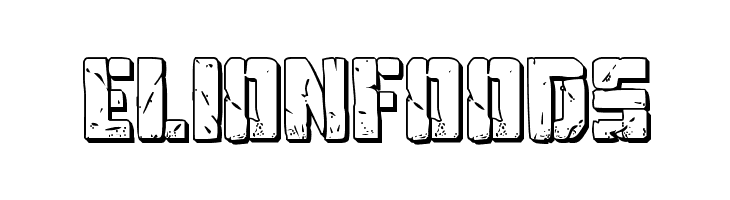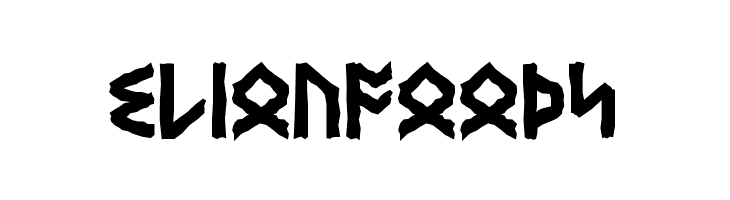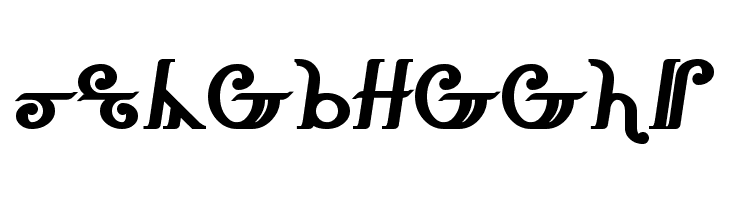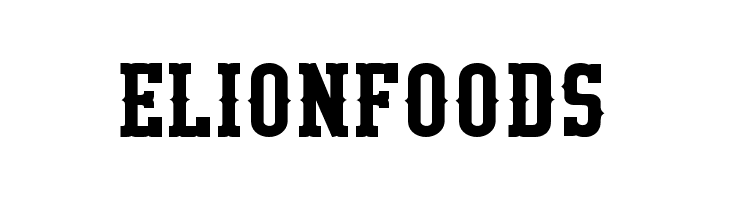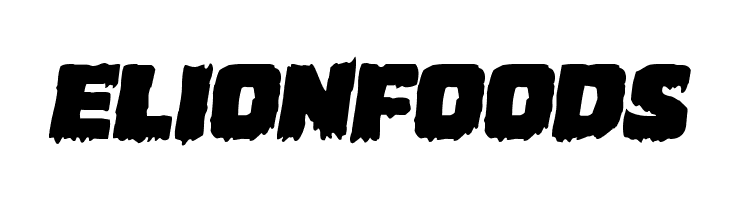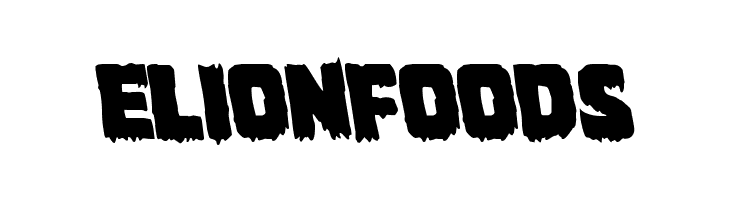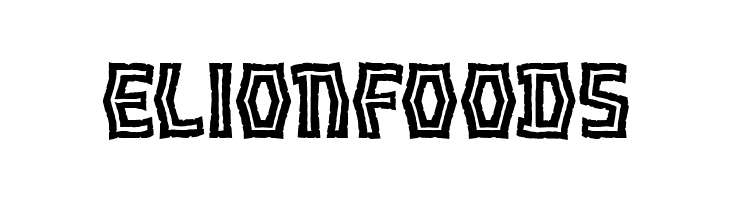
A decorative font with arrow-themed embellishments, offering a tribal aesthetic.
A bold, textured font with a distressed, stormy appearance.
A rugged, textured font with a natural, handcrafted appearance.
A bold, slanted font with a futuristic and dynamic style.
A bold, distressed font with a textured, weathered appearance.
A bold, distressed font with an organic, rugged texture.
A bold, textured font with rugged, organic patterns and jagged edges.
A bold, textured font with a rugged, rock-like appearance.
A decorative, geometric font inspired by fictional runes, ideal for fantasy themes.
A bold, vintage font with intricate, decorative flourishes.
A bold, textured font with a rustic, hand-drawn appearance.
A bold, textured font with a snowy, distressed appearance.
A distressed, textured font with a rugged, wintry appearance.
Bold, angular, and pirate-themed with a slight italic slant.
A bold, industrial font with a distressed, eroded effect for a rugged look.
A bold, italic 3D font with a distressed, dynamic style.
A bold, distressed 3D font with a rugged, stone-like appearance.
A bold, camouflage-patterned font ideal for adventurous and rugged designs.
A rugged, textured font with a splintered wood appearance.
A bold, decorative font with characters set in cowboy-themed silhouettes.
A bold, playful font with a jungle-inspired theme and irregular cutouts.
A bold, Western-inspired font with thick, rounded strokes and a vintage charm.
A bold, distressed font with a vintage, rugged texture.
A bold, hand-drawn font with a rustic, organic feel.
A bold, dynamic font with sharp angles and a lightning bolt motif.
A bold, distressed font with a rugged, vintage appearance.
A bold, distressed font with a rugged, vintage texture.